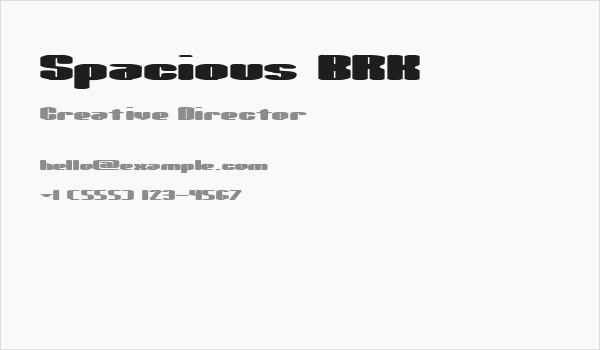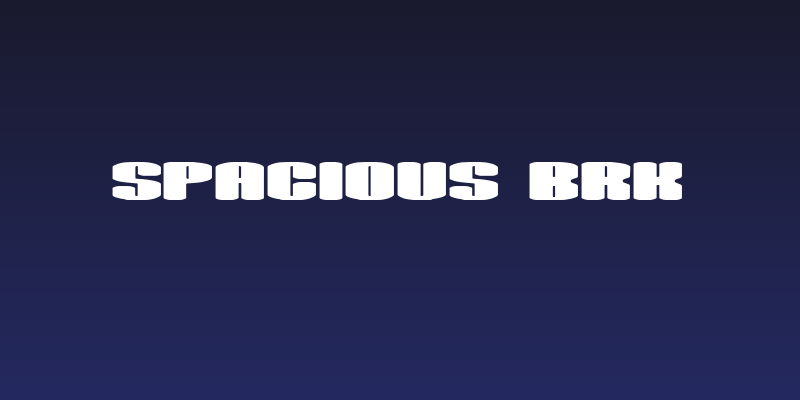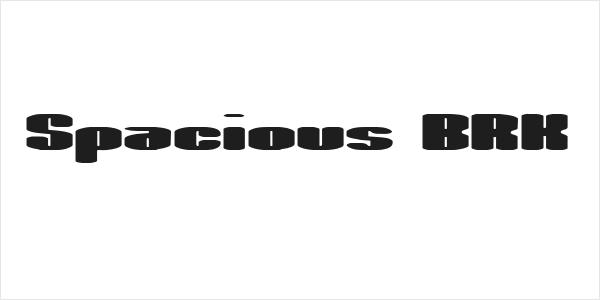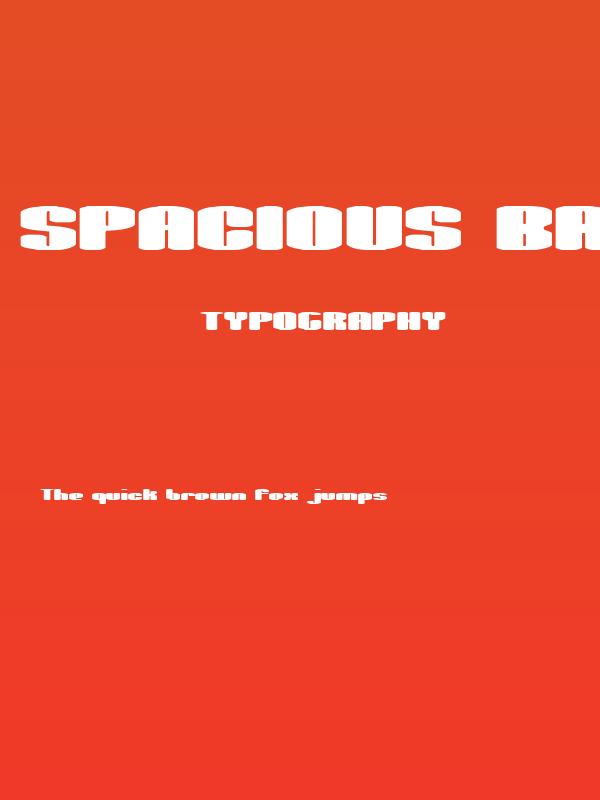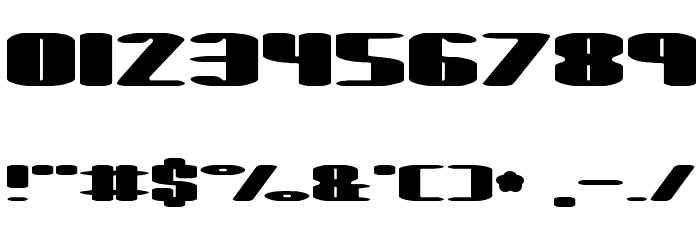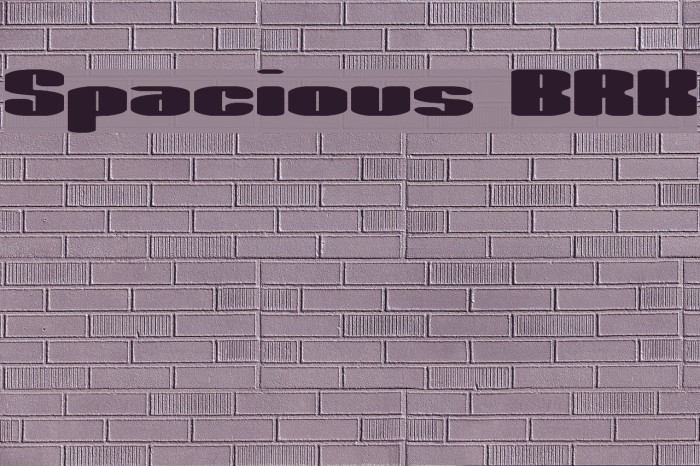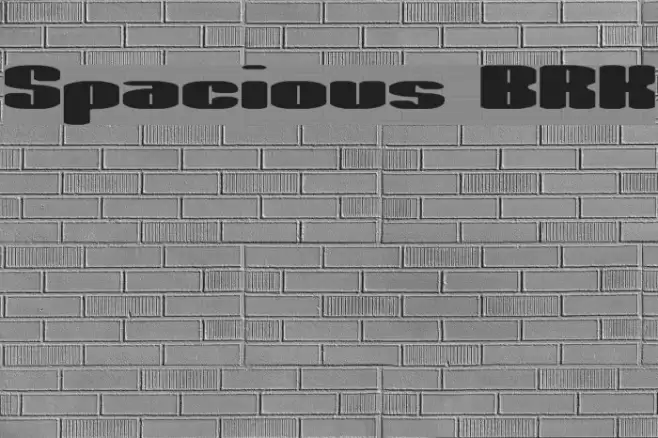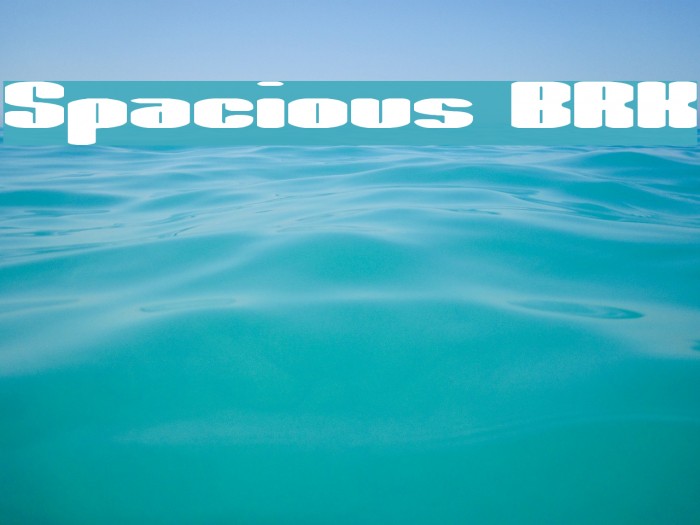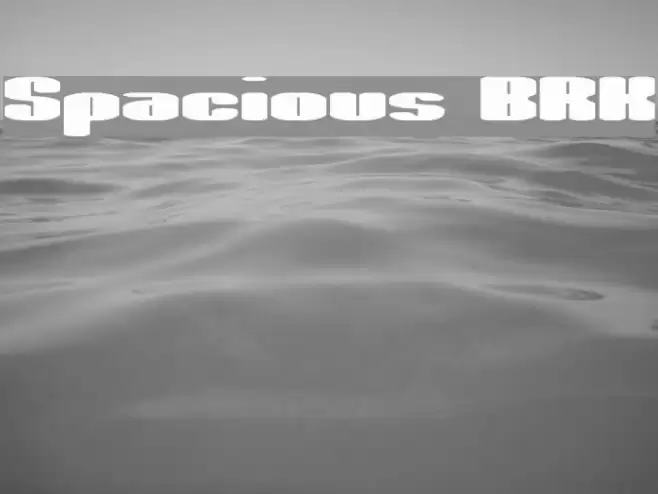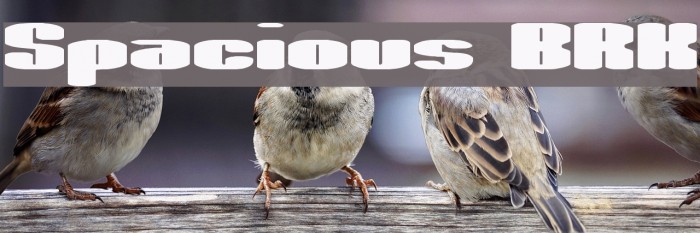
Spacious BRK Font
Spacious BRK Description
This font features a bold and striking design with a distinctly modern and futuristic aesthetic. The characters are wide and have a unique, blocky appearance with rounded edges, giving them a soft yet impactful look. The uppercase and lowercase letters maintain a consistent style, while the numbers and special characters complement the overall design. The font's thick strokes and uniform width make it highly legible, even at smaller sizes. Its distinctive style makes it suitable for projects that require a bold statement or a modern touch.
| Proposed Projects | Ideal for posters, headlines, branding, and any project needing a modern, impactful look. |